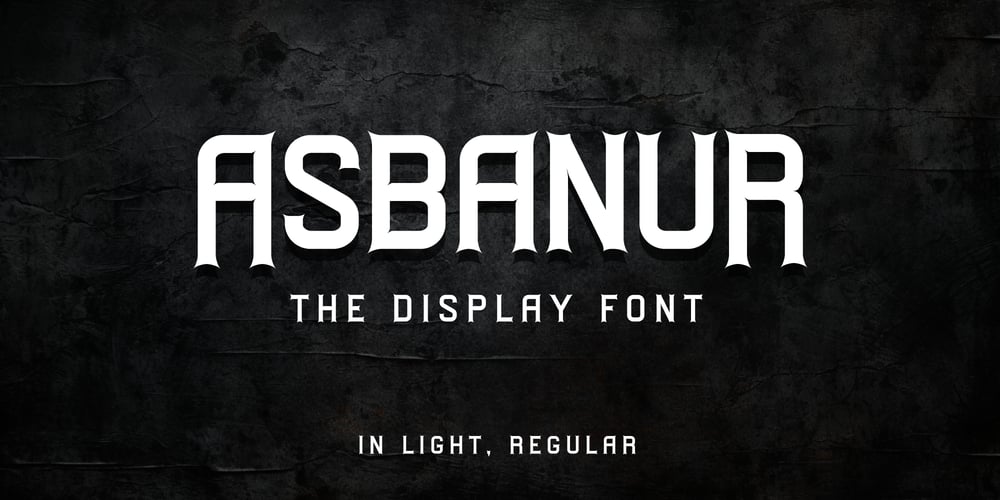
Asbanur Font Family was designed by Agustian Eko Saputro, Aprilia Nurina Putri and published by Mightyfire. Asbanur contains 2 styles and family package options. Hello! Asbanur is here.Asbanur brings modern, clean and neat looks. This font can be used as the logo of your brand, headline title, magazine title or many things.We have two versions: light and regular, but both of the versions is cool!Try them and enjoy!